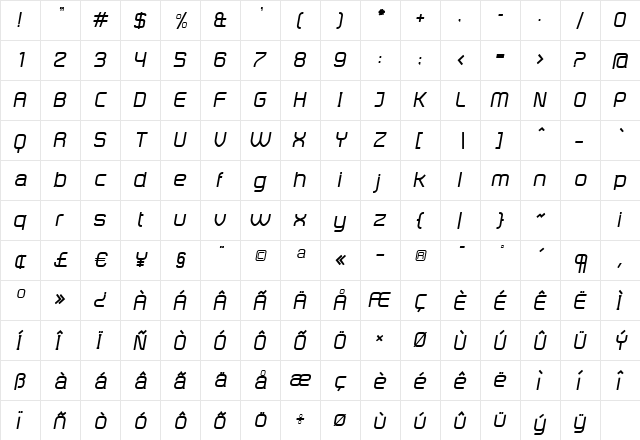
DistillaRegular Italic Regular
Design Context for DistillaRegular Italic Typeface
DistillaRegular Italic is a composed and adaptable typeface that performs quietly and consistently across a wide range of design contexts. The dynamic lean of this cut emphasises speed and emphasis in any layout.
Pro Tip: Use DistillaRegular Italic for emphasis, pull quotes, and subheadings where its slanted energy can add rhythm to the layout.